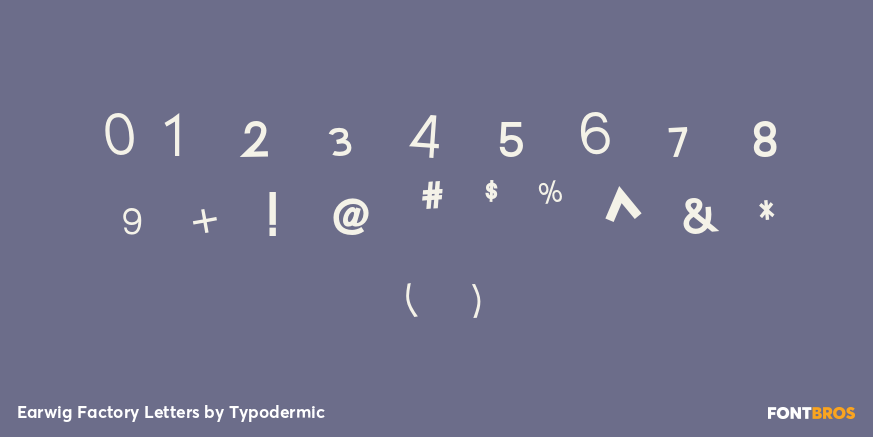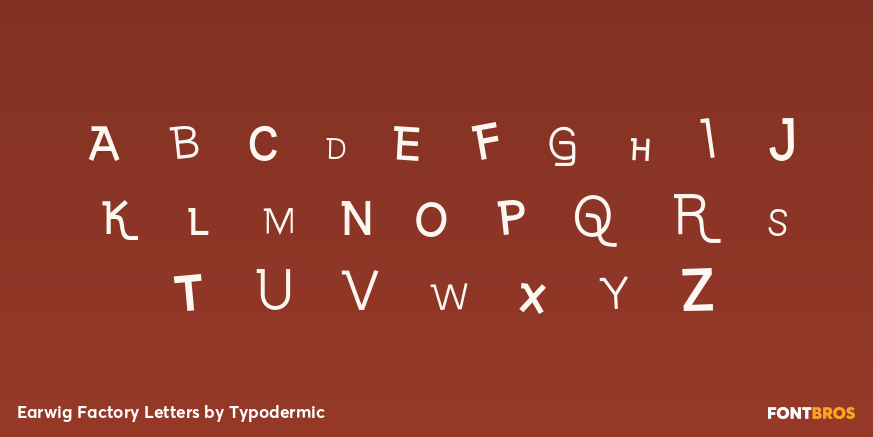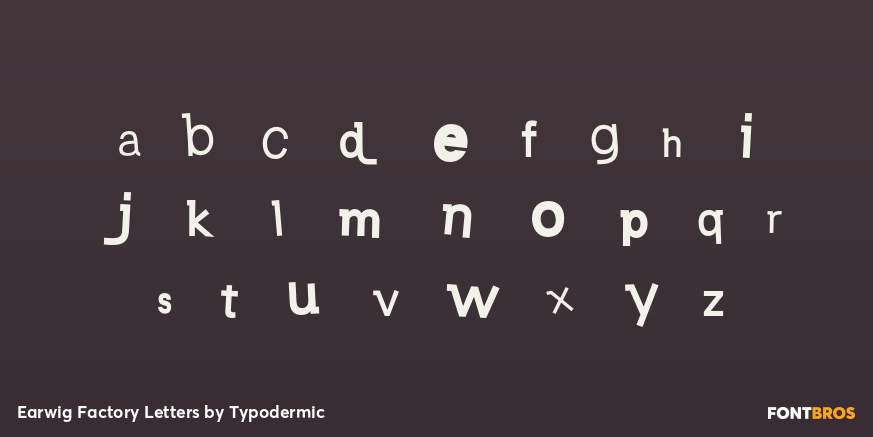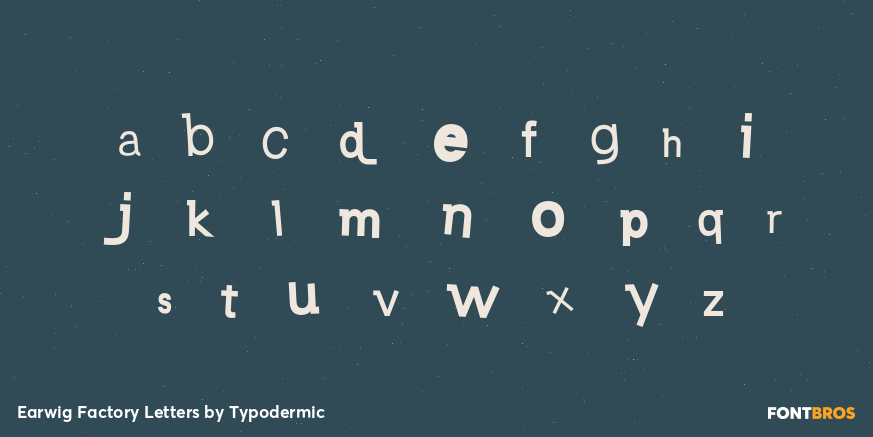
Earwig Factory Letters
Buy NowEarwig Factory Letters isolates the mismatched letterforms and removes their backing cards. It can sit over photography or a clean field by itself, or align with Earwig Factory Cards to reconstruct the full cut-and-paste design with independent control over each component.
Use Letters for anonymous messages, title sequences, clue graphics, tour identities, streetwear launches, and packaging where the characters need their own ink, foil, texture, or motion. Keeping the alphabet separate lets the cards change color or disappear entirely while the readable layer stays fixed.